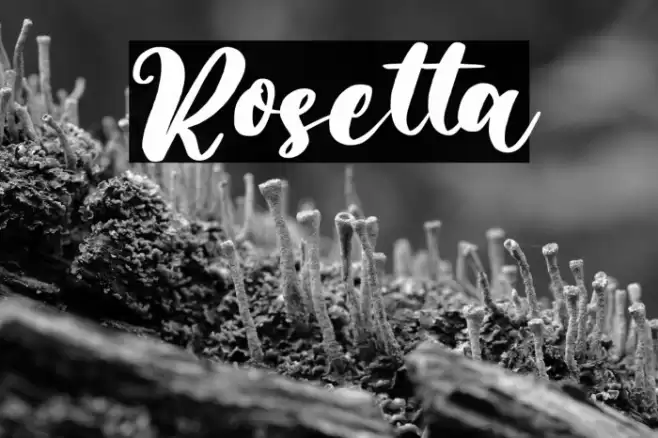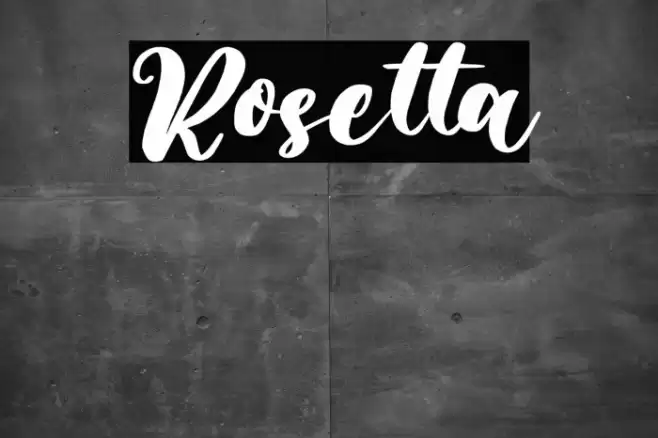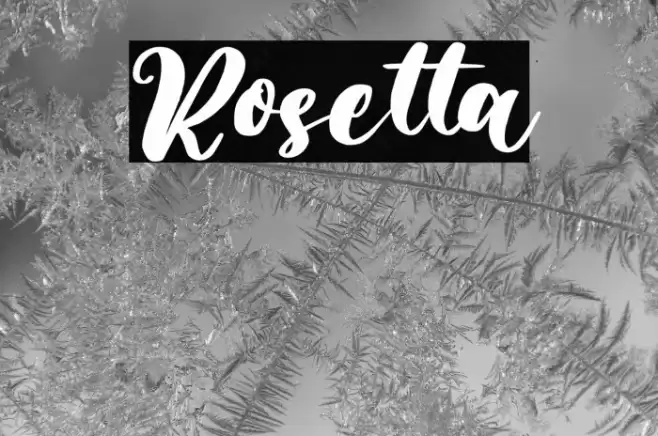
Rosetta Font
Rosetta Description
This font features a bold and expressive script style with a flowing, cursive design. The characters are interconnected, creating a sense of fluidity and movement. The uppercase letters are ornate and dynamic, while the lowercase letters maintain a consistent rhythm. The numbers are bold and easily legible, complementing the overall aesthetic. Special characters are designed with the same attention to detail, ensuring they blend seamlessly with the alphabet. The thick strokes and smooth curves give this font a lively and energetic feel, making it perfect for creative and artistic projects.
A bold, expressive script font with flowing, interconnected characters from Uncategorized fonts.
- Proposed Projects: Ideal for branding, invitations, greeting cards, and artistic projects.
- Character Spacing: Tight
- Use Case: Logos, Headlines, Invitations